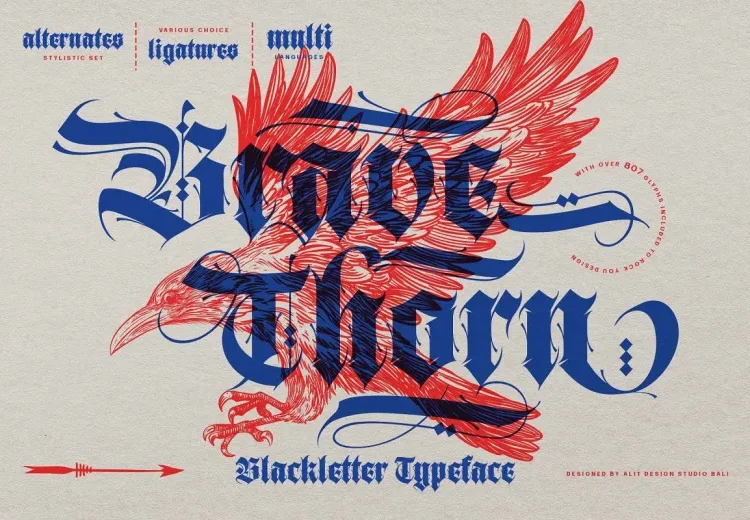
Brave Thorn Font
in Blackletter
Brave Thorn is an eye-catching Blackletter font distinguished by its striking strokes and intricate details. Symbolizing determination and courage, this font is an excellent choice for creating logos, headlines, or brands that need to make a strong impression.
Featuring a versatile set of creative options, Brave Thorn includes swashes, ligatures, alternate fonts, and additional alternatives that add unique character and flair to any project. Its compatibility with PUA Unicode allows easy access to special characters, enhancing your design possibilities.
Beyond its aesthetic appeal, Brave Thorn supports multilingualism, ensuring your message can reach diverse audiences and languages. Ideal for medieval-inspired posters or gothic logo creations, this font makes your work stand out with every word.